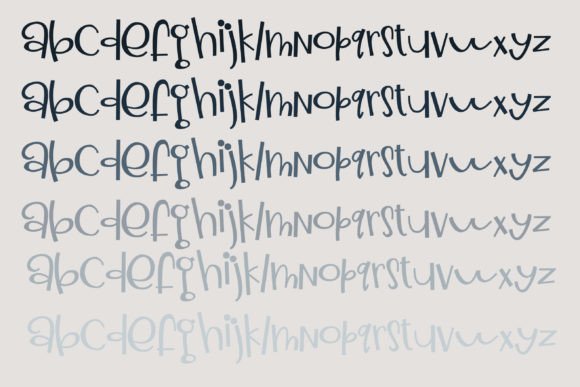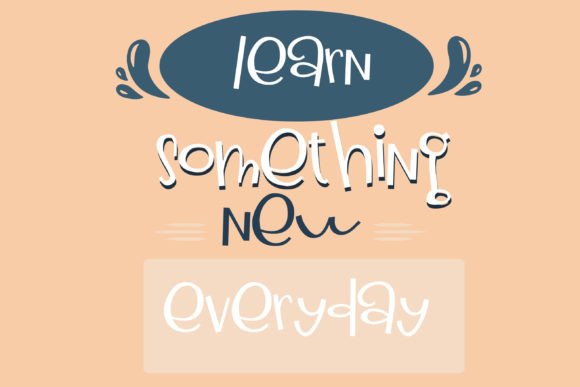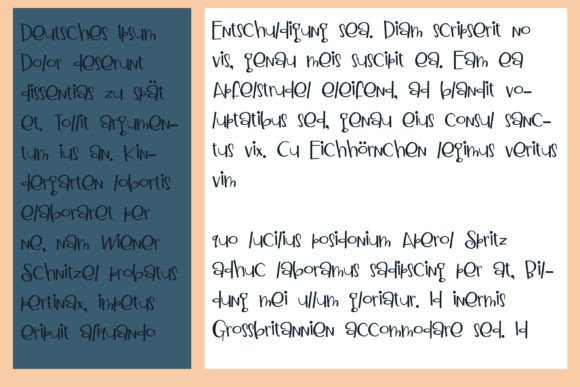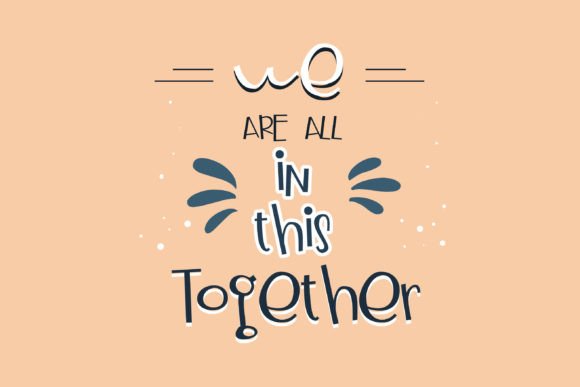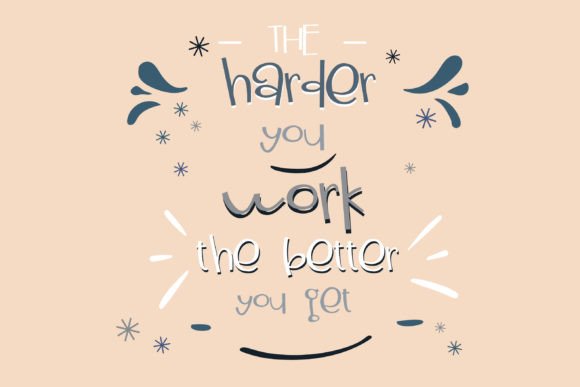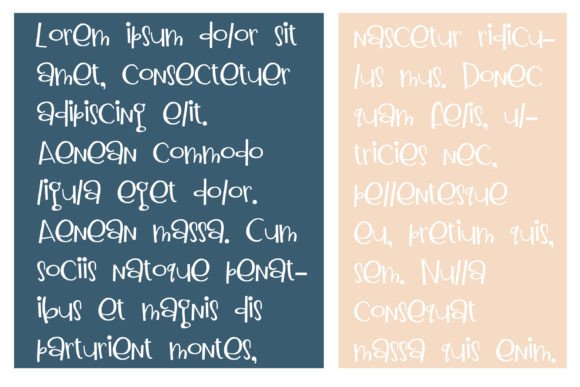
Bombastic Font: A Whimsical Hand-Crafted Sans Serif for Creative Projects
Are you looking for a font that adds a touch of personality to your designs? Look no further than the Bombastic Font, a hand-crafted sans serif that’s equal parts whimsical and sophisticated. With its unique blend of toggle and mis-sizing, this font is sure to make your projects stand out from the crowd.
A hand-crafted font is a typeface that’s designed to look like it was written by hand. This style of font is often used for invitations, greeting cards, and other creative projects where a personal touch is desired. Handwritten fonts can be either formal or informal, and they can be used for a wide range of purposes, from digital designs to print materials.
Introducing Bombastic Font
Bombastic Font is a one-of-a-kind, hand-crafted sans serif that’s perfect for designers and crafters who want to add a bit of flair to their work. This font features a unique blend of bold and delicate lines, with a touch of toggle and mis-sizing that gives it a delightfully whimsical feel. Whether you’re creating invitations, greeting cards, or digital graphics, Bombastic Font is sure to make your projects pop.
Key Features of Bombastic Font
- Hand-crafted design: Each letter has been carefully crafted to look like it was written by hand, giving Bombastic Font a unique and personal feel.
- Whimsical style: With its toggle and mis-sizing, Bombastic Font has a playful, whimsical style that’s perfect for creative projects.
- Sans serif design: This font features a clean, sans serif design that’s easy to read and perfect for digital and print materials.
- Bold version included: The bold version of Bombastic Font is perfect for headlines, titles, and other applications where you want to make a statement.
Uses for Bombastic Font
Bombastic Font is a versatile typeface that can be used for a wide range of creative projects, including:
- Invitations: Whether you’re planning a wedding, birthday party, or other special event, Bombastic Font is a great choice for invitations.
- Greeting cards: Add a personal touch to your greeting cards with Bombastic Font, perfect for birthdays, holidays, and other special occasions.
- Digital graphics: Use Bombastic Font to create eye-catching digital graphics, such as social media posts, blog headers, and more.
- Print materials: Bombastic Font is also perfect for print materials, such as brochures, flyers, and posters.
Tips for Using Bombastic Font
Here are a few tips for getting the most out of Bombastic Font:
- Use it sparingly: Because Bombastic Font is a bold and playful typeface, it’s best to use it sparingly to avoid overwhelming your design.
- Pair it with a simple font: Pair Bombastic Font with a simple font, such as a sans serif or serif typeface, to create visual interest and contrast.
- Experiment with colors: Don’t be afraid to experiment with different colors and textures to add depth and interest to your design.
Bombastic Font is a unique and versatile typeface that’s perfect for designers and crafters who want to add a touch of personality to their work. With its hand-crafted design, whimsical style, and bold and delicate lines, this font is sure to make your projects stand out from the crowd. Whether you’re creating invitations, greeting cards, or digital graphics, Bombastic Font is a great choice for any creative project.